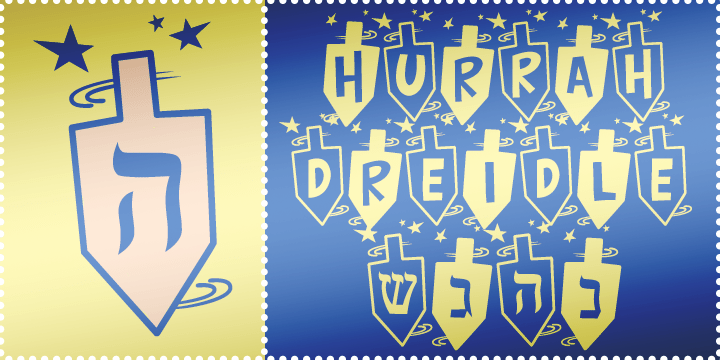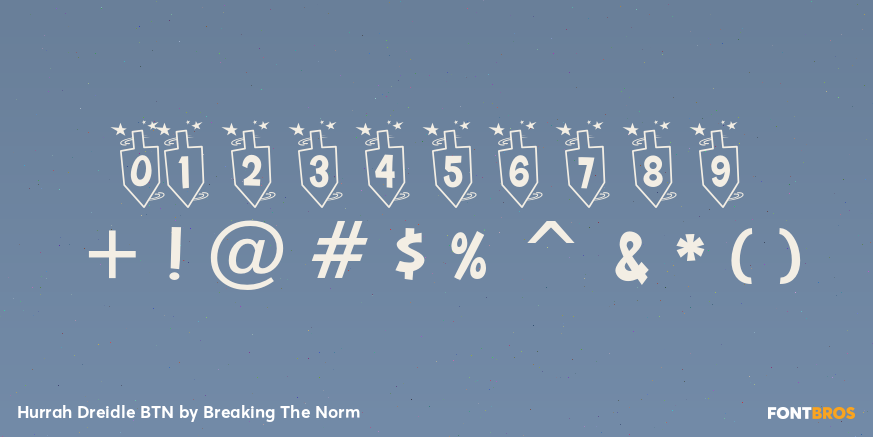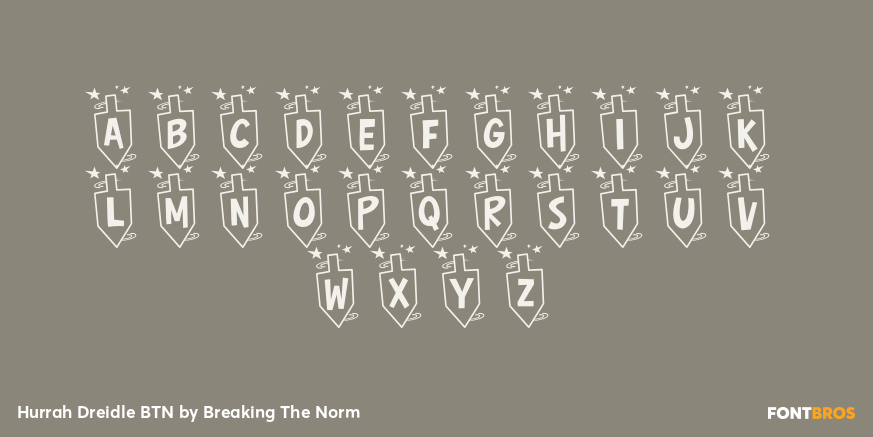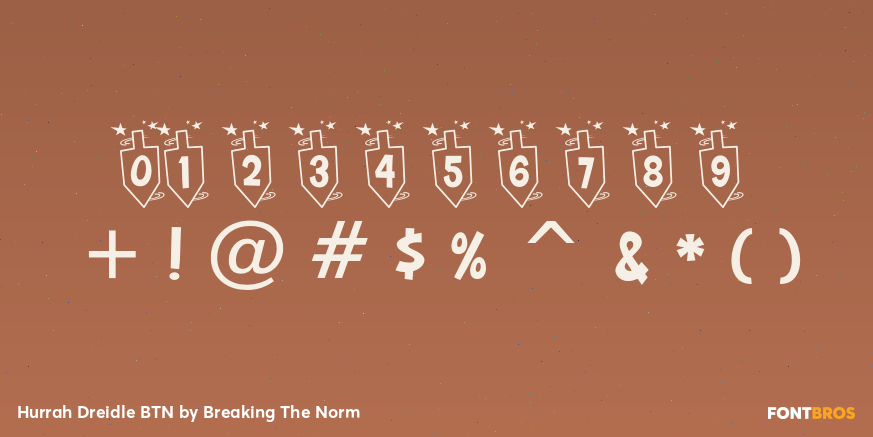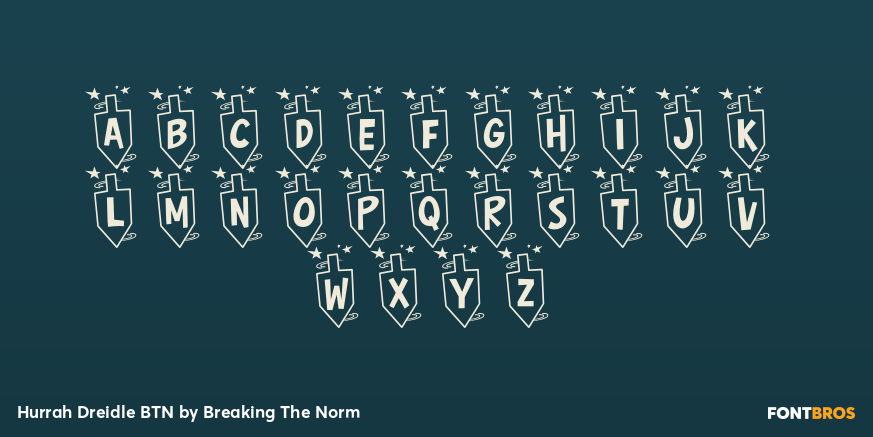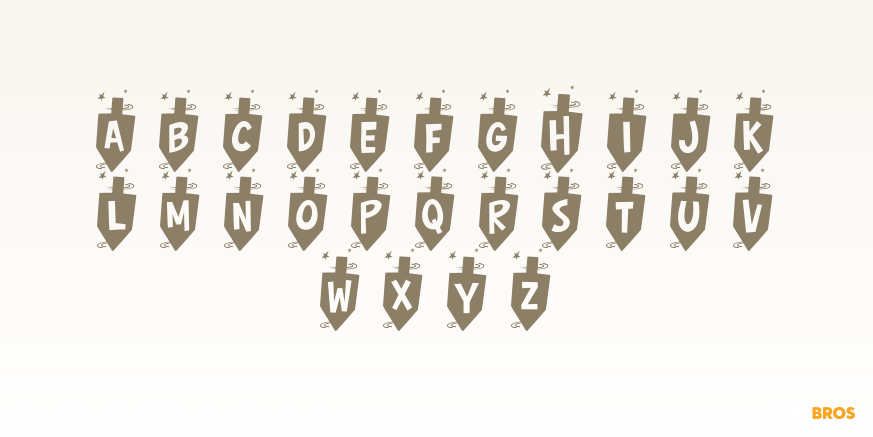
Hurrah Dreidle BTN
Font Family by Breaking The Norm
Hurrah Dreidle BTN is a festive holiday dingbat font created for Hanukkah-themed design. Built around dreidel-inspired imagery and game-centered symbolism, it offers a playful way to add seasonal accents to invitations, greeting cards, party materials, classroom projects, decorations, and holiday crafts. Hurrah Dreidle BTN brings a cheerful celebratory spirit to Hanukkah layouts, making it a fun decorative option for both family-oriented and event-based design work.